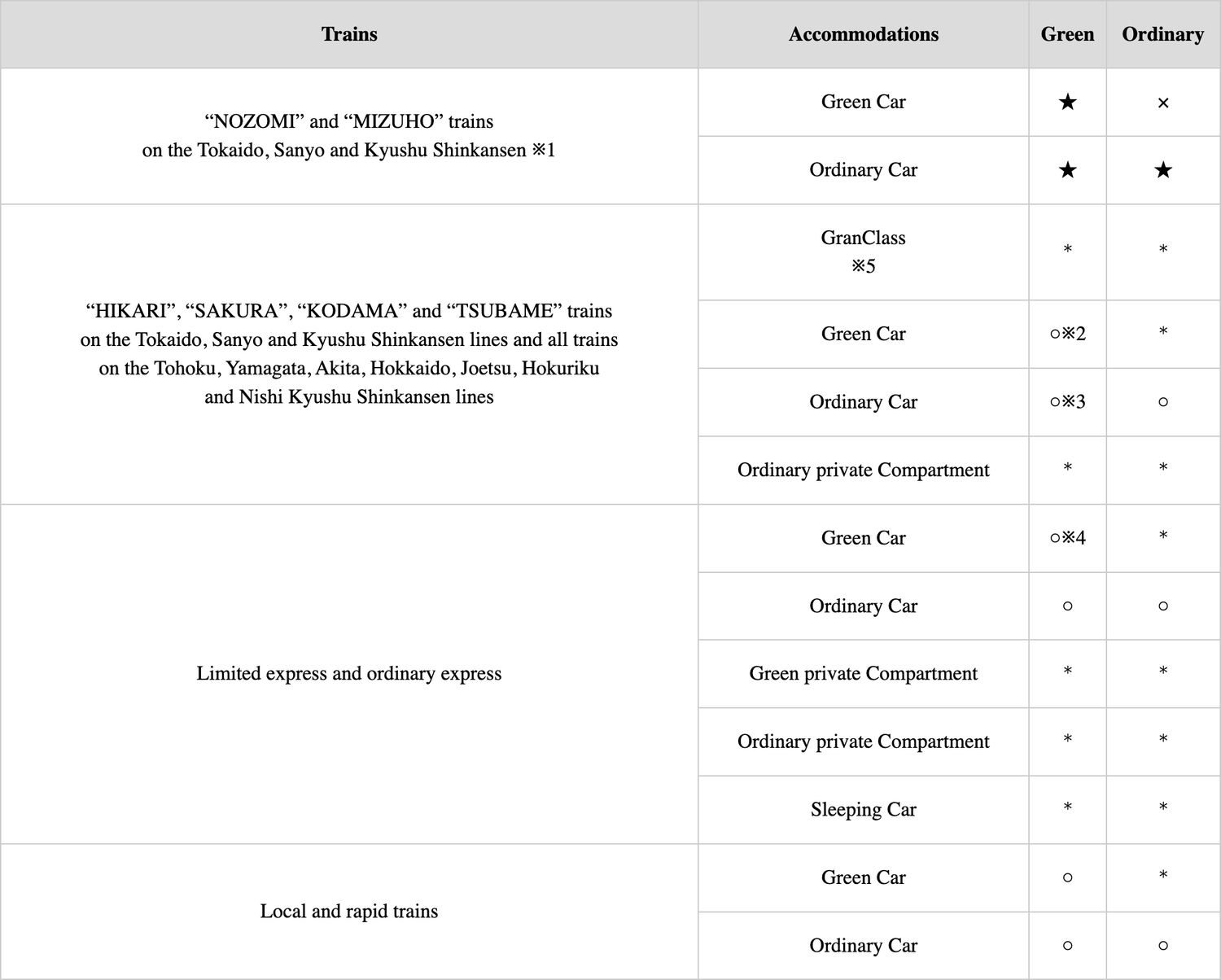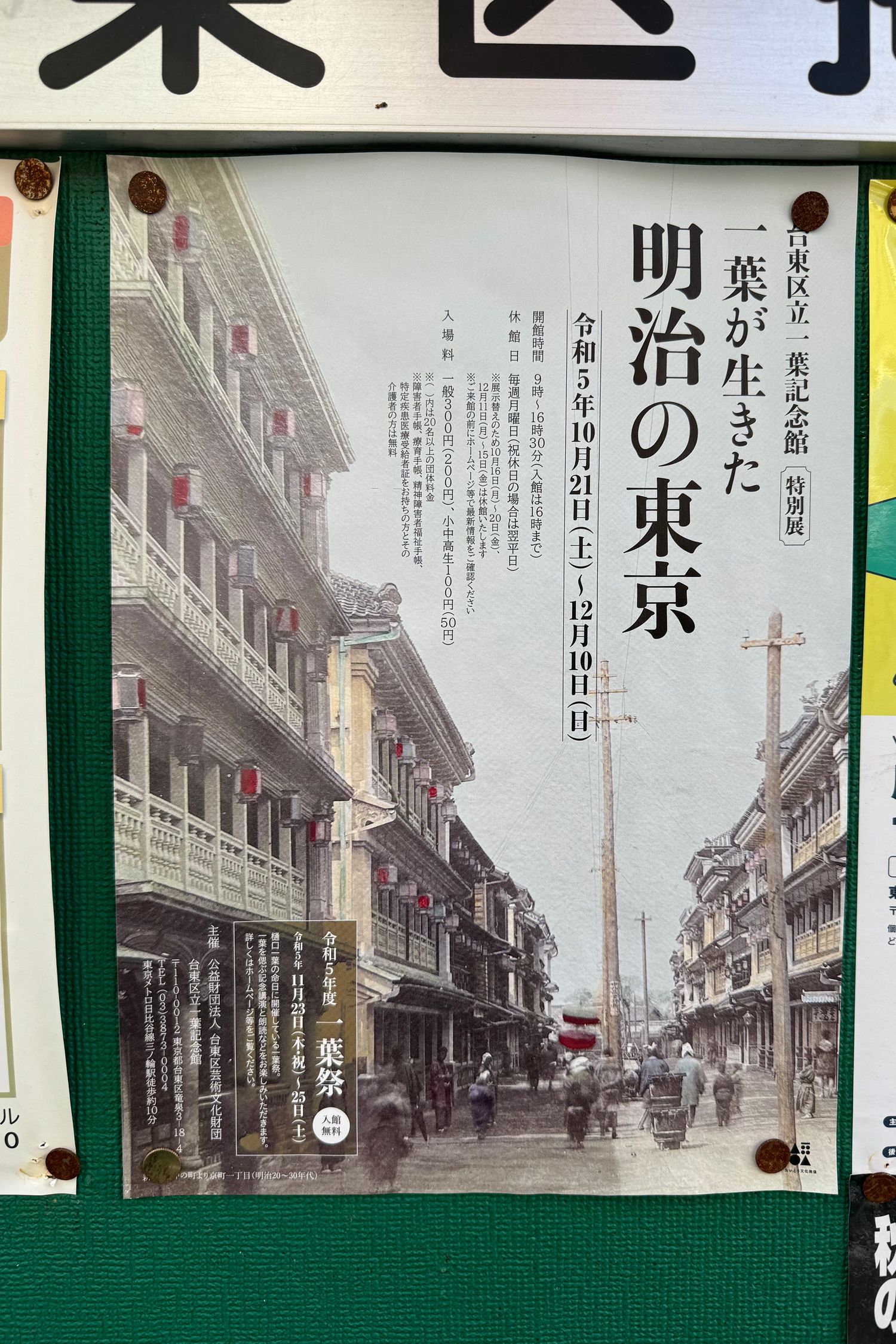
The Unvoiced Aesthetics of Japanese Typography
An Observation
Street life · Misaki, Japan
Street life · Misaki, Japan · Photo: Stefan Huber · 04. 11. 2023 11:55
Introduction
This thesis explores unspoken and purely visual elements in Japanese typography1 from the perspective of a typographer familiar with languages written in the Latin alphabet. It delves into the subtle, typographic features of Japanese script that are relevant in written form and highlights their significance in the broader context of typographic design and communication. The goal is to observe these elements and showcase how they contribute to the overall aesthetics of written Japanese.
This approach is not about cultural borrowing, but rather about the exploration of typographic diversity2 and its potential to enrich Latin typography. This exploration is aimed at understanding how diverse typographic elements can coexist and enhance each other. It reflects a broader perspective on the potential for typographic elements to evolve and adapt in a globally connected environment.
This thesis was written as part of the CAS Design Cultures 2023 program at Zurich University of the Arts and based on a field trip to Japan (28. 10. 2023 – 13. 11. 2023) where most observations were documented.
Manhole cover · Ueno Park, Toyo, Japan
Manhole cover · Ueno Park, Toyo, Japan · Photo: Stefan Huber · 09. 11. 2023 13:16
Menu · Tokyo, Japan
Menu · Tokyo, Japan · Photo: Stefan Huber · 08. 11. 2023 19:17
Reference mark ※
The reference mark ※, known as the «komejirushi» in Japanese, is a symbol used in Japanese typography with specific usage. It serves to highlight additional information, similar to the usage of footnotes in Western texts. It is typically found in academic texts, annotated works, or in instances where additional information is necessary but not always integral to the primary text. Its distinct appearance, resembling a flower or asterisk. Its name literally translates to «rice symbol», as the symbol resembles to the kanji for «rice» (米)3. The visual appearance is unique, and it adds both functionality and contextual value to the text.
Observation · Fine print with reference mark
In the context shown, the reference mark is used as an indicator for fine print. There is not a specific point where the mark is referencing to but just a general remark. Here it is used across the languages.
Menu · Izuei Main restaurant, Tokyo, Japan
Menu · Izuei Main restaurant, Tokyo, Japan · Photo: Stefan Huber · 30. 10. 2023 19:04
Observation · Reference marks used for further explanations
Street bulletin board · Tokyo, Japan
Street bulletin board · Tokyo, Japan · Photo: Stefan Huber · 30. 10. 2023 09:54
Detail view
On this small poster found on a street bulletin board, the reference mark is used to further specify some general information or to lead people where they can find more information.
Translation4 (partial)
Observation · Reference mark in english texts
picture
Website Japan Rail Pass · Train accommodations · archive copy
Website Japan Rail Pass · Train accommodations · archive copy · Screen capture: Stefan Huber · 20. 1. 2024
On the website of Japan Rail Pass the reference mark is extensively used. In this particular place, it is used as an indicator for numbered footnotes. Where in Latin typography the number stands by itself, in this case (also Latin typography but obviously set in another cultural understanding/background) the reference numbers are accompanied by the reference mark.
Website Japan Rail Pass · Types and prices · archive copy
Website Japan Rail Pass · Types and prices · archive copy · Screen capture: Stefan Huber · 20. 1. 2024
On another page, the same reference mark is used to indicate a footnote. In this case, the reference mark is used in a similar way as in Latin typography for a footnote. The big difference is that the reference was not set in the table, but only added in the footer.
Comparison with Latin Alphabet Typography
When comparing the ※ mark with typographical practices in the Latin alphabet, the closest equivalents are the asterisk (*), dagger (†), and double dagger (‡). These symbols are used in a similar manner, directing readers to footnotes or endnotes for additional information. However, the ※ mark differs in its design and cultural context.
But even in cultures that use the Latin alphabet, not all markings are used uniformly. For instance, in English academic writing, the dagger (†) is often used as a secondary footnote marker after the asterisk (*)5. In German texts, the usage is similar, but there is a greater tendency to indicate deceased individuals, particularly in bibliographies, and this practice is more consistent. Nevertheless, both languages employ the dagger sparingly to maintain text clarity.
To provide comprehensive symbol, emoji, and Japanese character coverage, the font Noto was utilized as a fallback option.
Restaurant signage · Tokyo, Japan
Restaurant signage · Tokyo, Japan · Photo: Stefan Huber · 28. 10. 2023 18:19